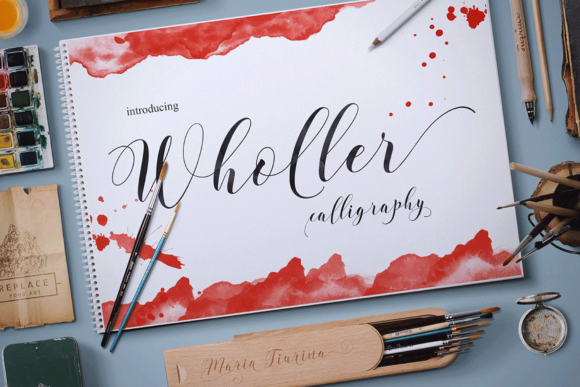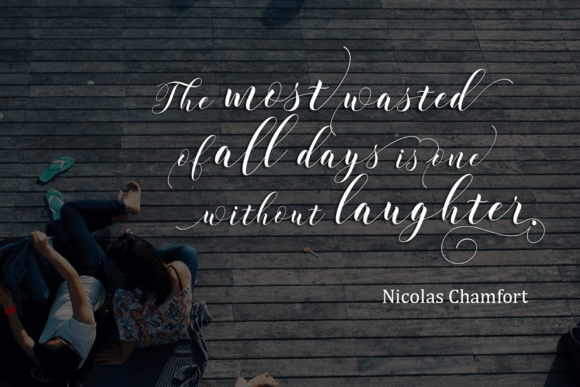
About Wholler Font
Wholler is a cute handwritten font carefully created with a touch of elegance. This is a beautiful combination of timeless elegance and authentic calligraphy. It features an incredibly classic style, while still keeping a friendly feel. Wholler is the perfect font for making original and outstanding designs.
This font is PUA encoded which means you can access all of the amazing glyphs and swashes with ease! It also features a wealth of special features including alternate glyphs and ligatures.